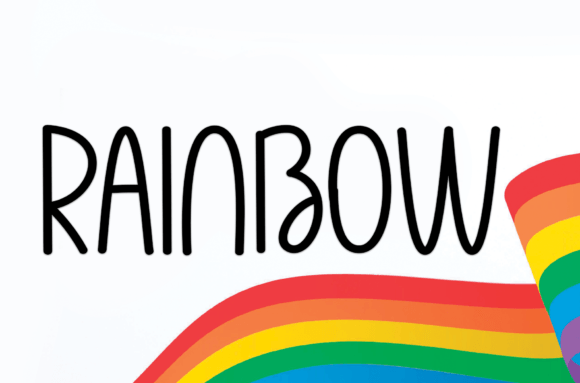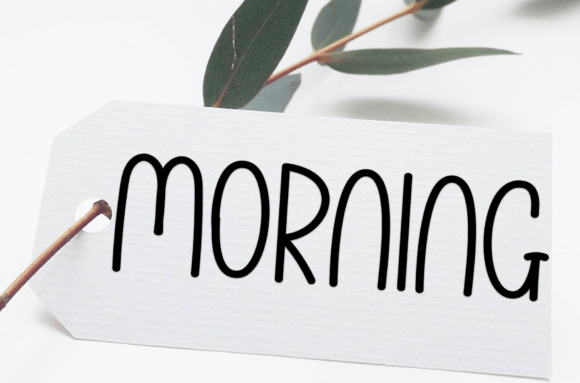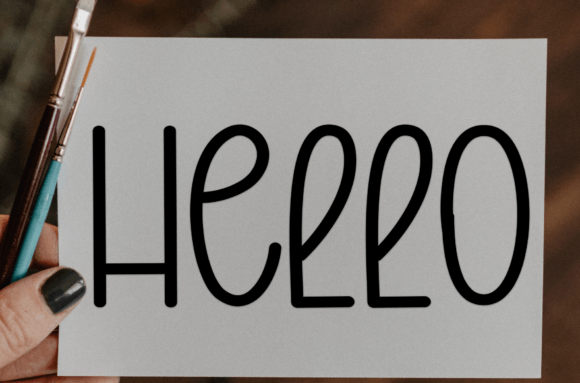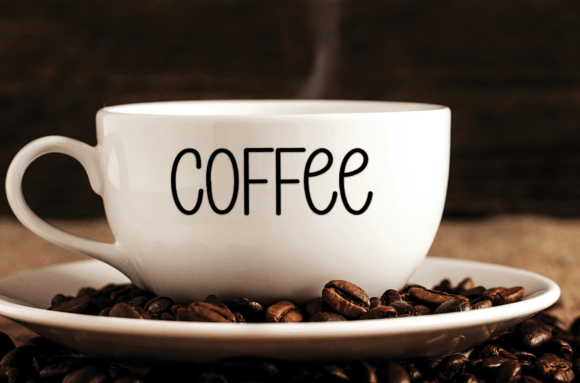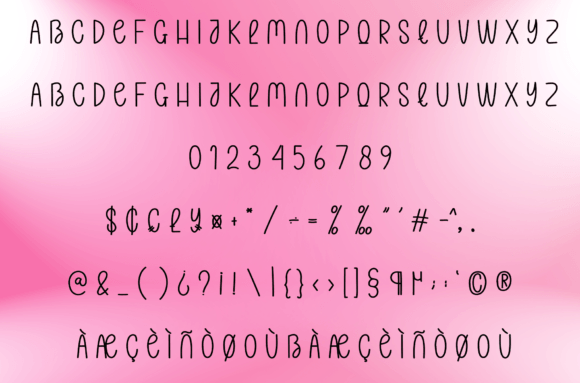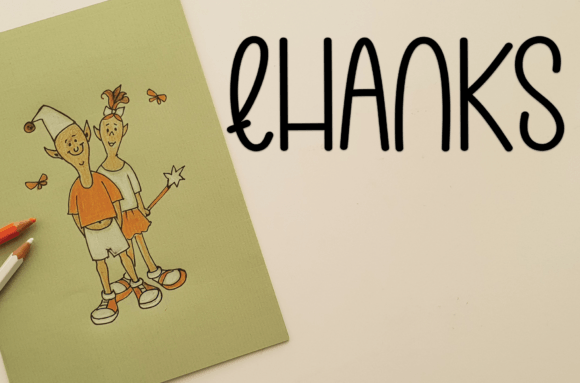
Introduction to Shadow Displays Font
Shadow Displays is a sweet and friendly handwritten font.
Fun and relaxed, this font is ideal for writing wedding invitations, cards, or any other design that might need a lovely touch .
Key Features of Shadow Displays Font